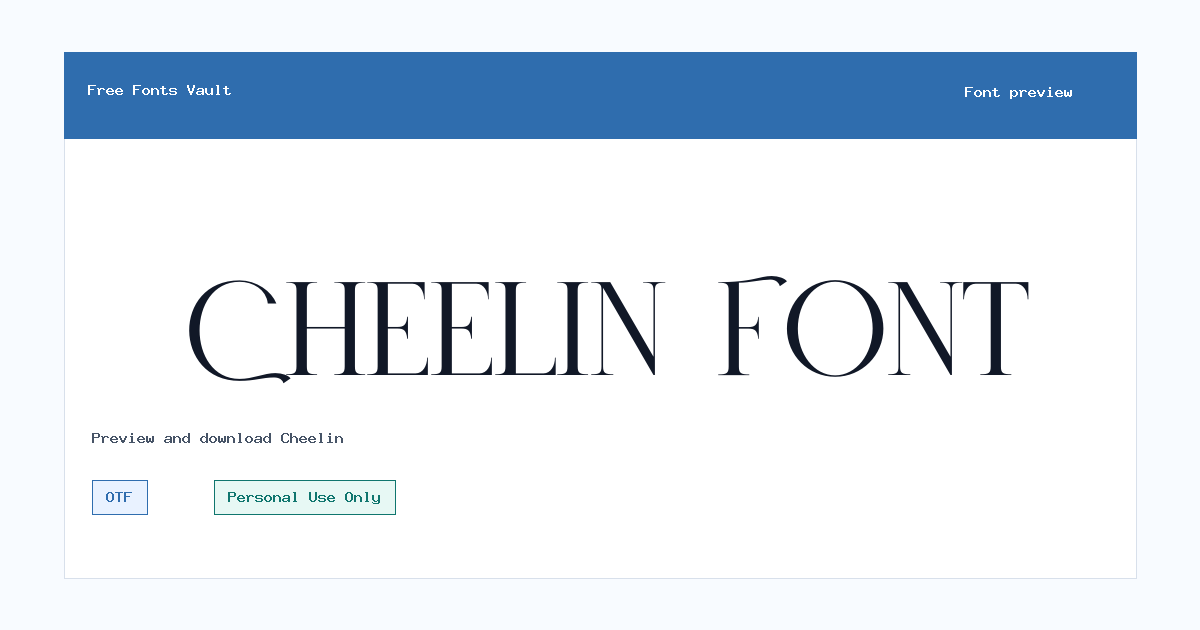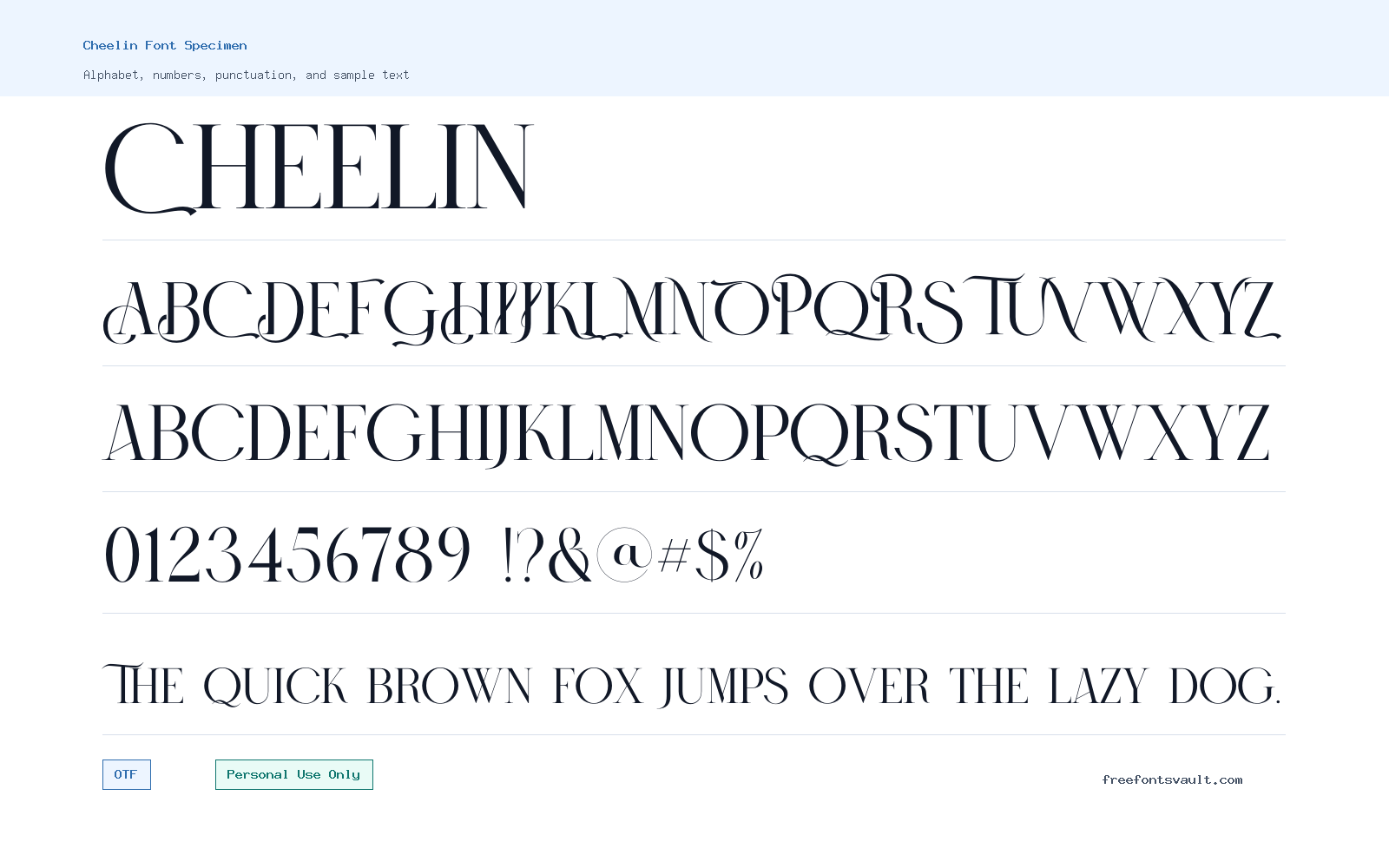
Cheelin
Cheelin font.
Cheelin is a refined serif font with a polished, decorative feel. It works best when you need a graceful headline, logo draft, poster title, or brand mockup rather than long blocks of body text.
About Cheelin Font
Cheelin has the look of a modern display serif: clean letter shapes, smooth curves, and a more dressed-up personality than a plain text face. The style is useful for short wording where the type can be noticed, such as a boutique logo concept, an editorial masthead, a packaging mockup, a wedding-style heading, or a social media graphic. A source page for the font describes it as an elegant serif with proportional spacing and ligature support, so it is worth testing words that contain common letter combinations before finalizing a design.
Use the preview tool to check your actual text, not just sample words. Display serifs can feel beautiful in a large title but may lose clarity when used too small, in all caps, or over a busy image. Try Cheelin at poster and logo sizes first, then test it in smaller subheadings if needed. For web mockups, it can help set a refined visual direction, but the license should be reviewed before using it in a live client or commercial site. Since the included file is an OTF font, it is well suited for desktop design apps and local testing.
- Elegant serif style suited to display typography, titles, and brand mockups.
- Best used at larger sizes where its curves and refined details remain visible.
- Reported character support includes standard Latin letters, numbers, punctuation, currency symbols, accented Latin characters, and decorative/private-use glyphs.
- Logo concepts and boutique identity mockups
- Editorial-style headings and magazine-inspired layouts
- Packaging mockups for beauty, fashion, stationery, or lifestyle concepts
- Website hero headings and social media quote graphics
- Personal invitations, mood boards, and non-commercial presentation work
Pair Cheelin with a simple sans serif or a quiet text serif so the heading remains the focus. Avoid pairing it with another decorative display font, because the result can become crowded quickly. For logo work, test the exact brand name in uppercase, lowercase, and title case, then check spacing around letters such as A, V, T, W, and Y. For posters and web mockups, give the font enough whitespace and contrast; it will usually work better as a headline than as paragraph text.
What type of font is Cheelin?
Cheelin is a serif display font with an elegant, polished look. It is better for headings and short text than for long reading passages.
What should I pair with Cheelin?
Use a clean sans serif for body text, navigation, captions, or supporting information. A simple pairing keeps Cheelin’s display style from competing with other decorative type.